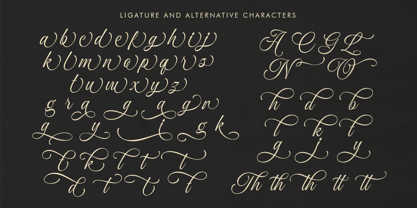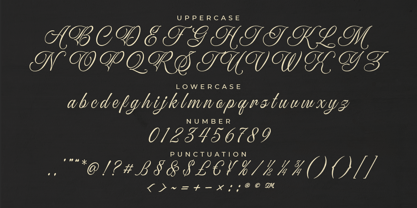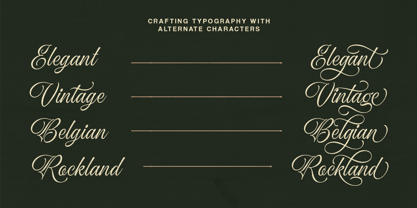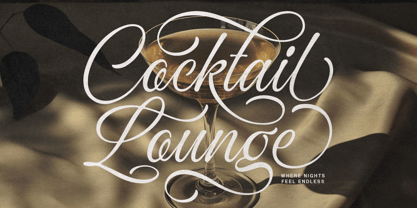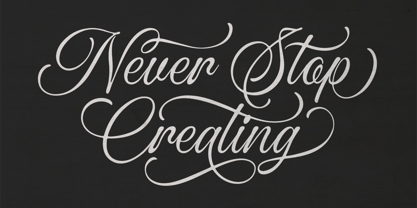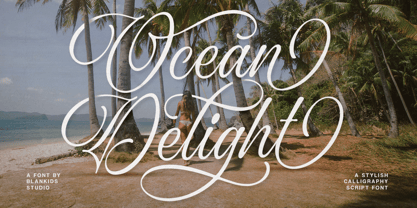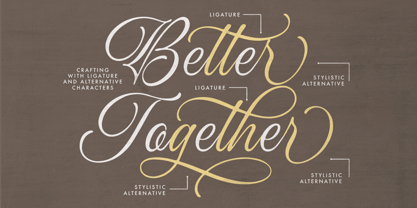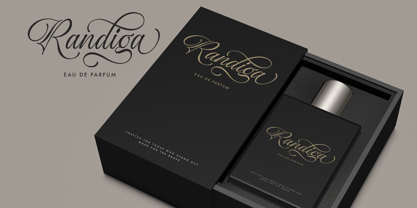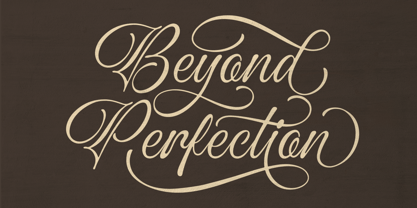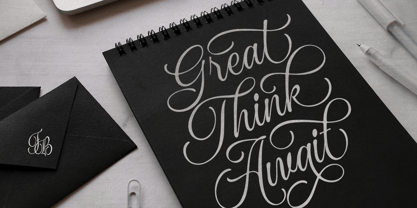
Ocean Delight
von Blankids
Die Schriftfamilie Ocean Delight wurde von Bangkit Tri Setiadi entworfen und von Blankids veröffentlicht. Ocean Delight enthält 1 Stile. Mehr über diese Familie
Ocean Delight – A Stylish Calligraphy Script Font Ocean Delight is an elegant and expressive calligraphy script font crafted with smooth curves, flowing strokes, and refined letterforms. Designed to bring a sense of luxury and romance, this font combines classic calligraphy aesthetics with a modern, stylish touch perfect for designers who want their work to look graceful and captivating. Inspired by the beauty of the ocean and the serenity of tropical landscapes, Ocean Delight delivers a visual rhythm that feels both calm and sophisticated. Its decorative swashes and beautifully shaped alternates make it ideal for premium branding and standout typography.
Designer: Bangkit Tri Setiadi
Aktuelle Foundry: Blankids